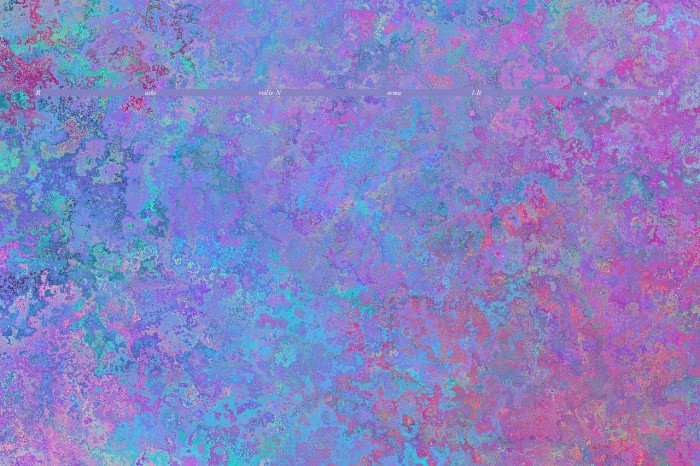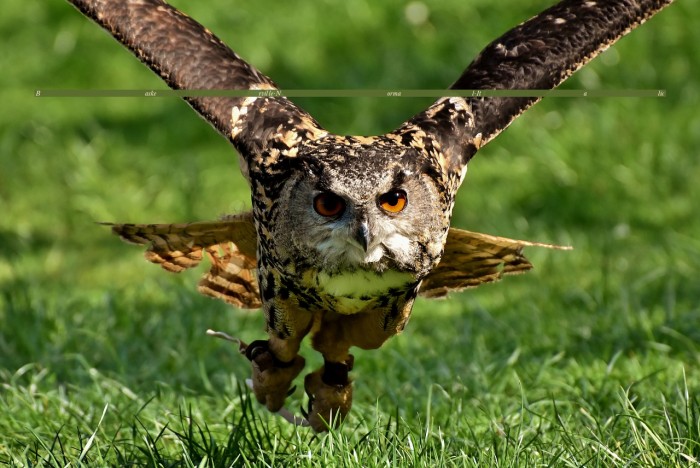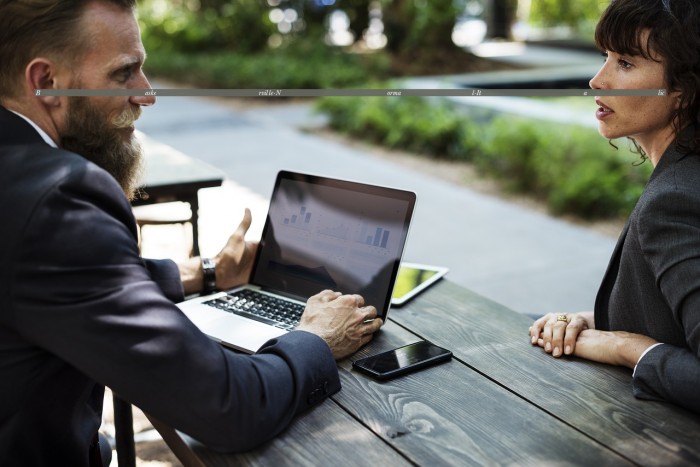
Baskerville-Normal-Italic Font
This font is a classic serif typeface with elegant, flowing italic characters. It features a refined and sophisticated style, characterized by its smooth curves and moderate contrast between thick and thin strokes. The serifs are well-defined, adding a touch of formality and tradition. The italic slant gives it a dynamic and graceful appearance, making it suitable for conveying a sense of elegance and professionalism. The numerals and special characters maintain the same stylistic consistency, ensuring a cohesive look across all text elements.
A classic serif font with elegant italic styling and moderate contrast.
- Proposed Projects: Ideal for use in formal documents, invitations, book covers, and editorial design where a touch of elegance and tradition is desired.
- Category: Serif
- Overall Style: Classic
- Use Case: Headlines, Body text, Editorial design